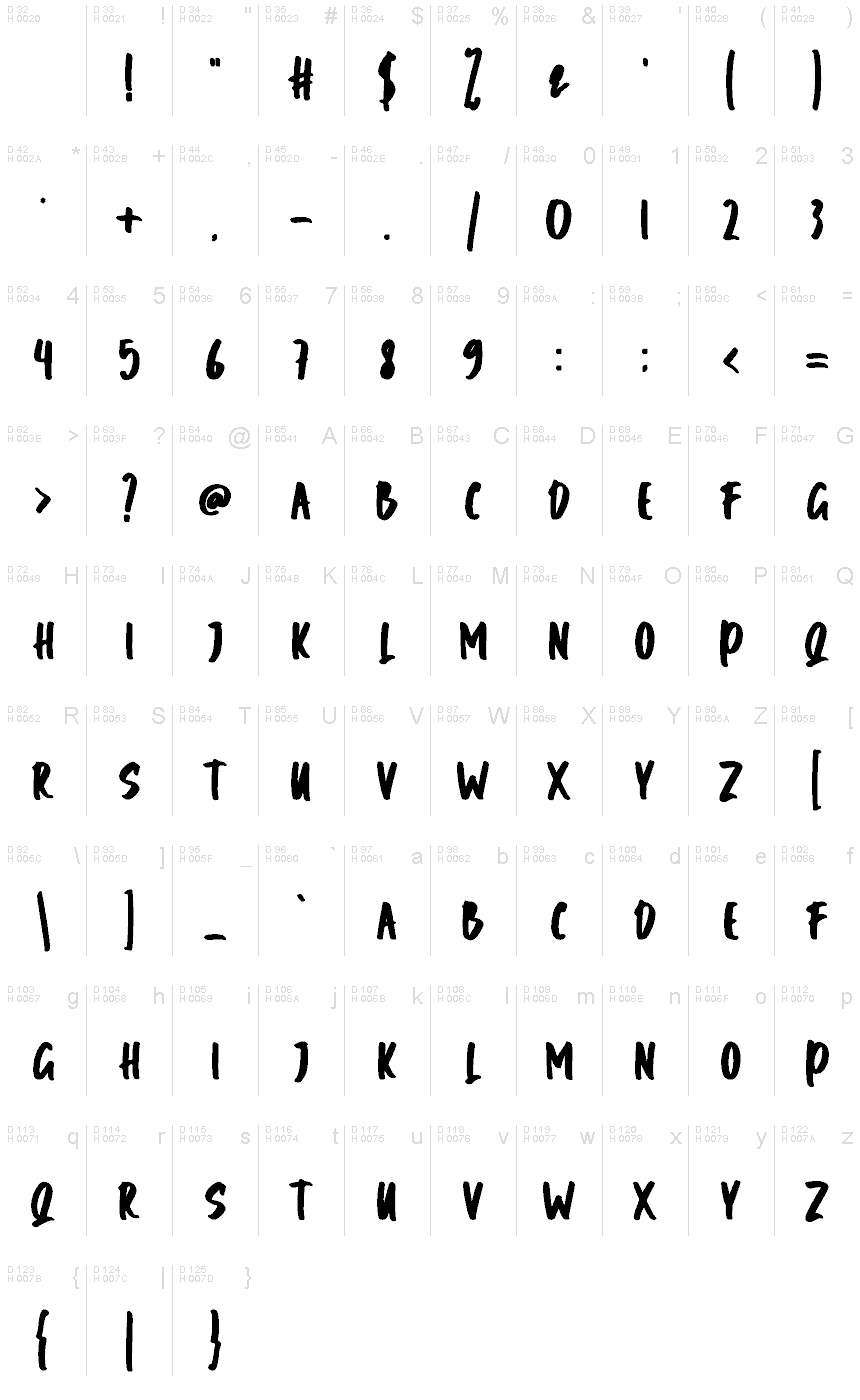
Hundre
Hundre font by Skiiller Studio is a modern brush font that showcases an expressive and energetic letter style. The bold condensed letters give the typeface a robust appearance that blends graffiti inspiration with an urban touch for extra visual appeal. Other notable aspects of the font are its adventurous, authentic, and natural yet artistic presence.
The free display font is ideal for use in branding, packaging projects, logo designs, barbershops posters & quotes, badges & apparel, printed quotes, and other typographic projects.